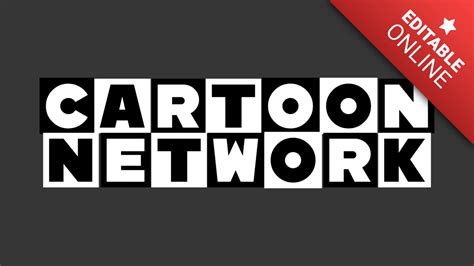
Cartoon Network Font Generator. Create fun and vibrant text effects for your designs with our font style text effect generator. Cartoon network logo font license:
Create unforgettable visuals that leave a lasting impression on your audience. Cartoon network logo font license: Try our text generator and create cool graphics for cartoon network font, then you can save. Web the closest free font we can find that resembles the logo is cartoon slam designed by james loby. Cartoon network font generator & download is available free at fontbolt. Web use the text generator below to convert your text into graphics online with cartoon network font, you can then save the image or click on the embed button to get links to embed the image on the web. Create fun and vibrant text effects for your designs with our font style text effect generator. Transform your words into a playful and captivating display, inspired by the iconic cartoon network.
Try our text generator and create cool graphics for cartoon network font, then you can save. Cartoon network logo font license: Web the closest free font we can find that resembles the logo is cartoon slam designed by james loby. Transform your words into a playful and captivating display, inspired by the iconic cartoon network. Create fun and vibrant text effects for your designs with our font style text effect generator. Create unforgettable visuals that leave a lasting impression on your audience. Try our text generator and create cool graphics for cartoon network font, then you can save. Web use the text generator below to convert your text into graphics online with cartoon network font, you can then save the image or click on the embed button to get links to embed the image on the web. Cartoon network font generator & download is available free at fontbolt.